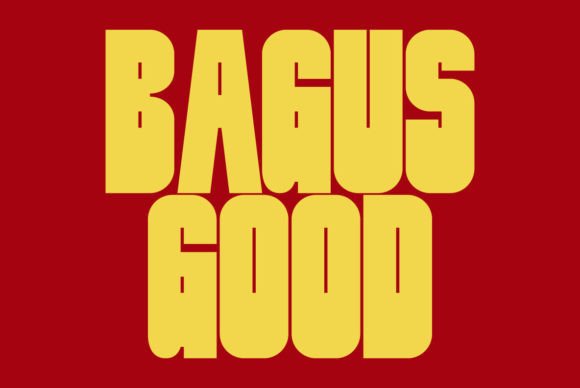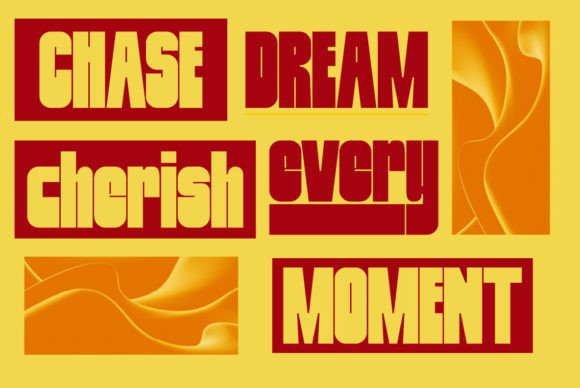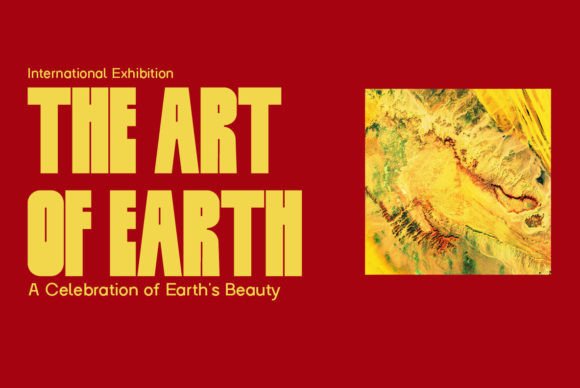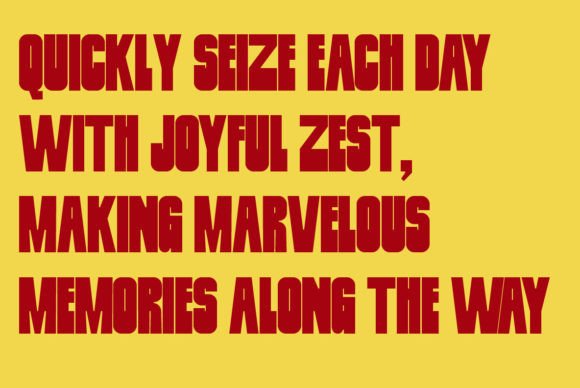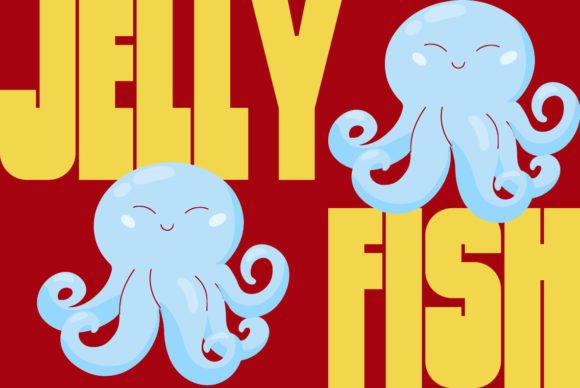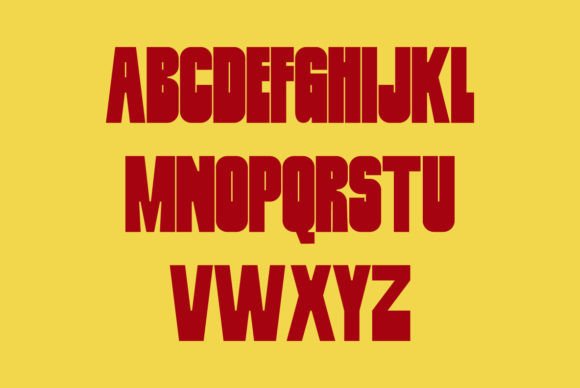
Meet Bozilla: The King of Display Fonts
I’ll never forget the design project that led me to discover Bozilla. I was working on a bold, eye-catching poster for a monster-themed exhibition, and I was struggling to find the perfect font. The client wanted something that would command attention, something that would embody the raw power and strength of the King of the Monsters himself, Godzilla. That’s when I stumbled upon Bozilla, a commanding display sans serif font that would change the game.
The Inspiration Behind Bozilla
Bozilla is more than just a font – it’s an experience. Inspired by the colossal presence of Godzilla, this font stands tall and bold, with a condensed design that commands attention. The unique characteristic of Bozilla lies in its stout and sturdy base, mirroring the distinct silhouette of its legendary inspiration. It’s as if the font itself is a towering giant, radiating confidence and power.
An Honest Review of Bozilla
- ✨ Impactful and attention-grabbing: Bozilla is perfect for headlines, titles, and any text that needs to make a statement.
- ✅ Condensed design: The font’s compact style makes it ideal for layouts where space is limited.
- 💪 Sturdy and strong: Bozilla’s bold lines and sturdy base evoke a sense of power and resilience.
- 🤔 Limited use in body text: Due to its bold and condensed design, Bozilla might not be the best choice for lengthy paragraphs or body text.
- ⚠️ Kerning issues: As with any font, some users might experience kerning issues, especially when using all caps or large font sizes.
- Experiment with OpenType features, such as Stylistic Alternates, to add some extra flair to your text.
- Explore the Glyphs panel to access additional characters, such as ligatures and stylistic alternates.
The Designer Inspiration Behind Bozilla
Bozilla was designed with the goal of capturing the raw power and energy of Godzilla. The designer’s inspiration came from the iconic monster’s imposing presence, its rugged texture, and its unstoppable force. The result is a font that’s both bold and beautiful, perfect for designers who want to make a statement.
Q: What is Bozilla?
A: Bozilla is a commanding display sans serif font inspired by the King of the Monsters, Godzilla.
Q: What is Bozilla best used for?
A: Bozilla is perfect for headlines, titles, and any text that needs to make a bold statement.
Q: Can I use Bozilla for body text?
A: While Bozilla can be used for body text, its bold and condensed design makes it more suitable for headings and titles.